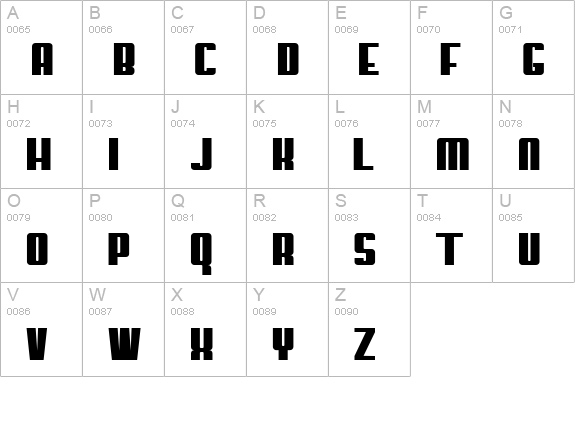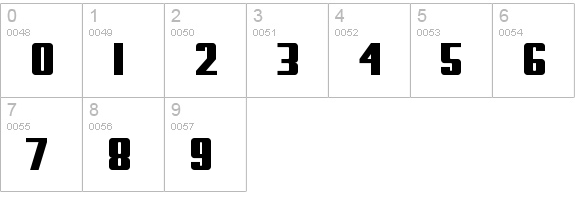
Park Normal is the standard, neutral variant in the Park typeface family \xE2\x80\x94 well suited to general body text, paragraphs, and standard typographic work.
Park Normal font is a beautifully crafted typeface that exudes elegance and sophistication. Its clean and modern design makes it perfect for a wide range of projects, from professional branding to stylish invitations. The letters are meticulously designed with balanced proportions and smooth curves, giving it a timeless appeal. One of the greatest features of Park Normal font is that it is completely free to download. This means that you can effortlessly add a touch of class to your designs without breaking the bank. Whether you're a graphic designer, a web developer, or simply someone who appreciates high-quality typography, Park Normal font is a versatile choice that won't disappoint. To get your hands on this stunning font, simply head over to FontsMarket.com. There, you'll find the Park Normal font available for free download, making it easily accessible to anyone who wants to enhance their creative projects. Don't miss out on the opportunity to elevate your designs with this elegant typeface. Download Park Normal font today and let your creativity soar.